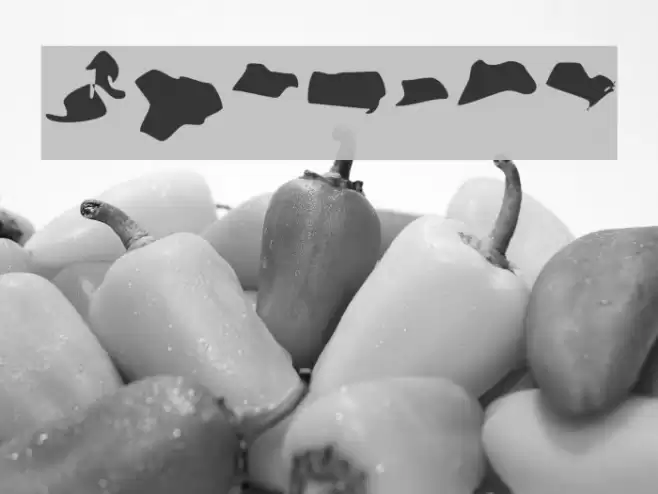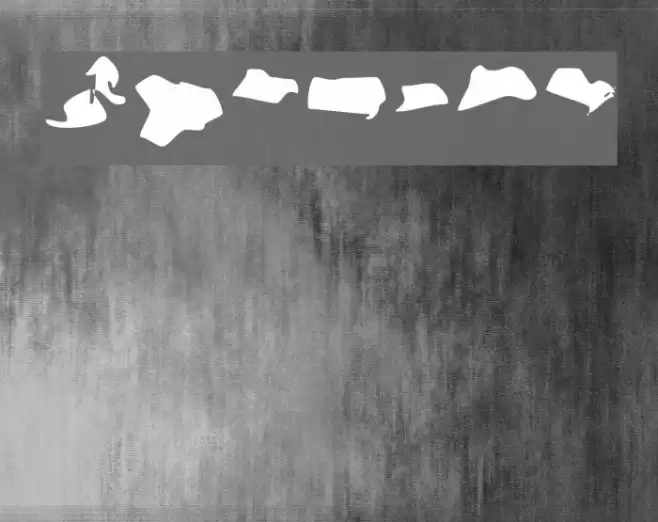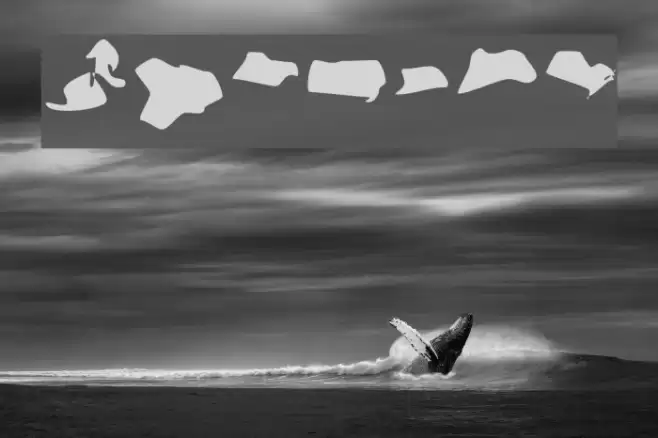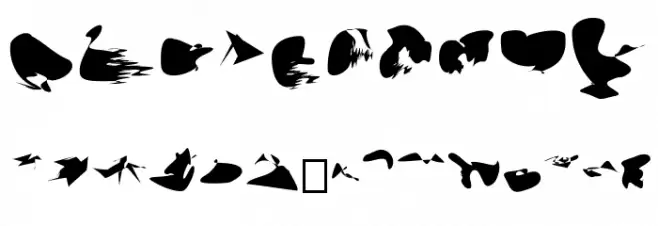
Warzone Font
Warzone Description
This font features an abstract and highly stylized design, with characters that appear as bold, irregular shapes. The letters are distorted and fragmented, creating a chaotic and dynamic appearance. The style is reminiscent of graffiti or street art, with a sense of movement and energy. The characters are not easily distinguishable, making it more suitable for artistic or decorative purposes rather than readability. The overall impression is one of boldness and unpredictability, with a unique and unconventional aesthetic.
An abstract, graffiti-like font with bold, irregular shapes from Uncategorized fonts.
- Proposed Projects: Ideal for artistic projects, album covers, street art designs, or any creative work that requires a bold and unconventional typeface.
- Overall Style: Modern, Artistic
- Use Case: Logos, Posters, Art projects